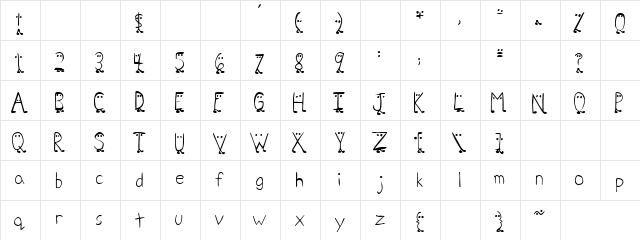
Lambretta D Regular
Design Context for Lambretta D Typeface
Lambretta D is a composed and adaptable typeface that performs quietly and consistently across a wide range of design contexts.